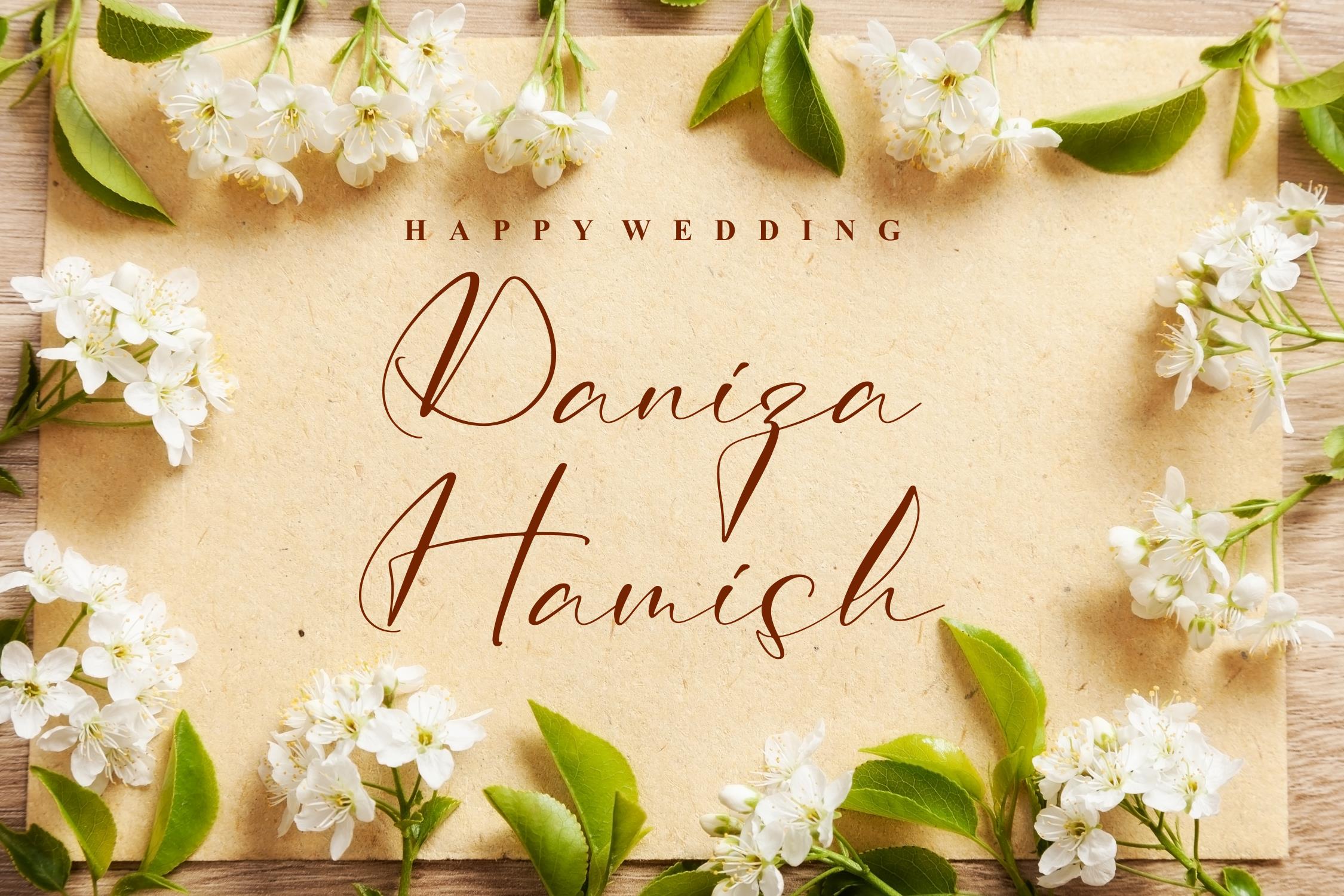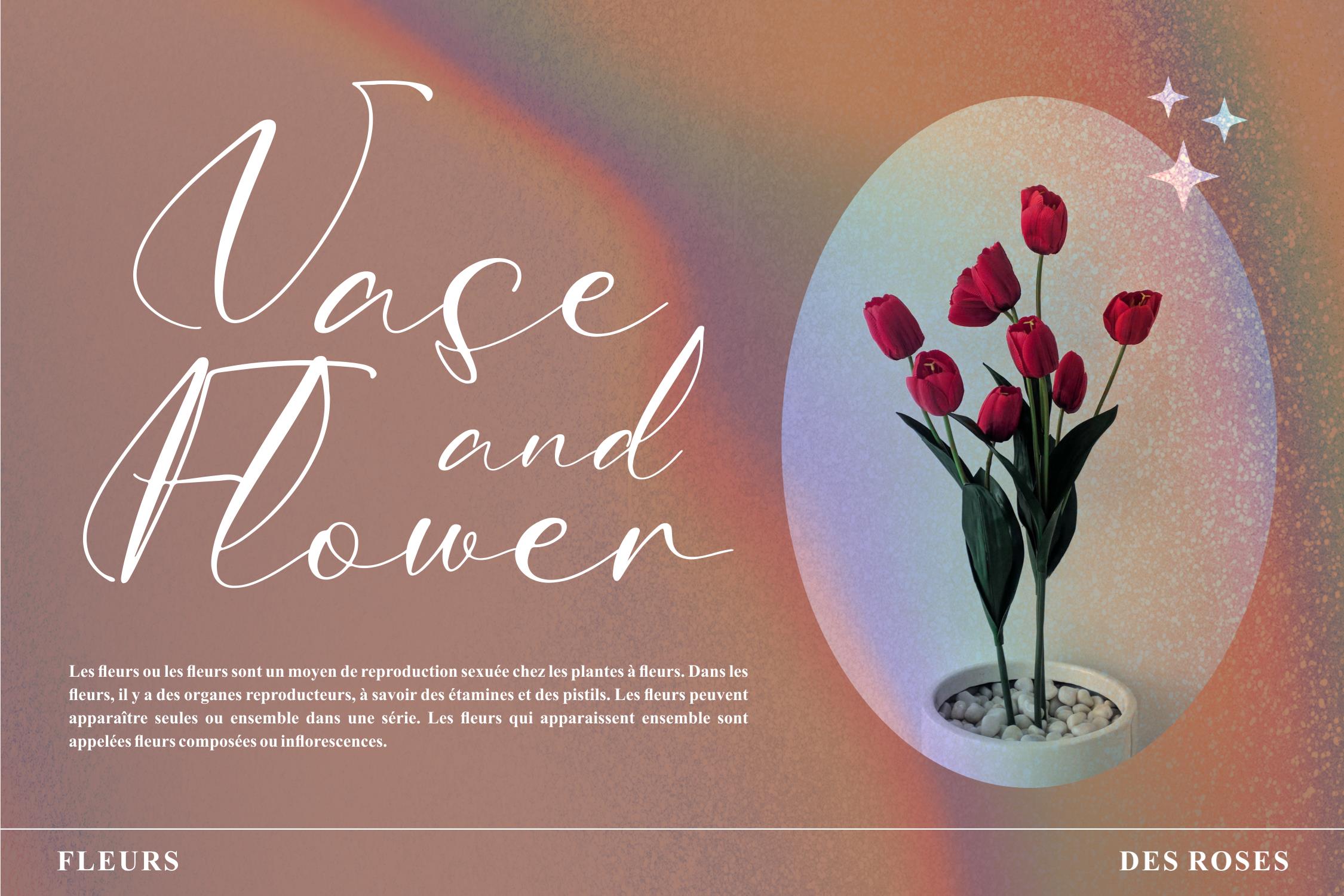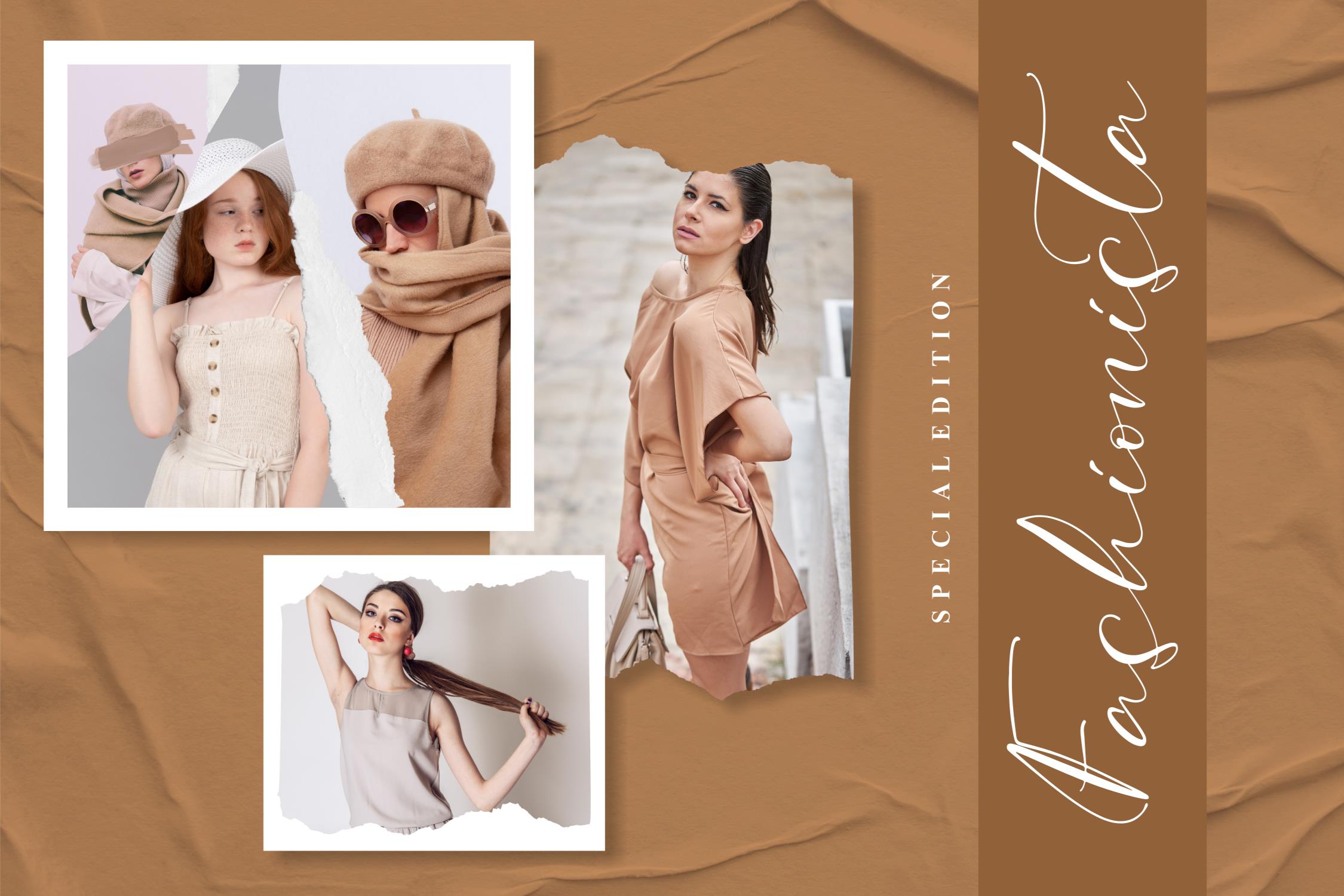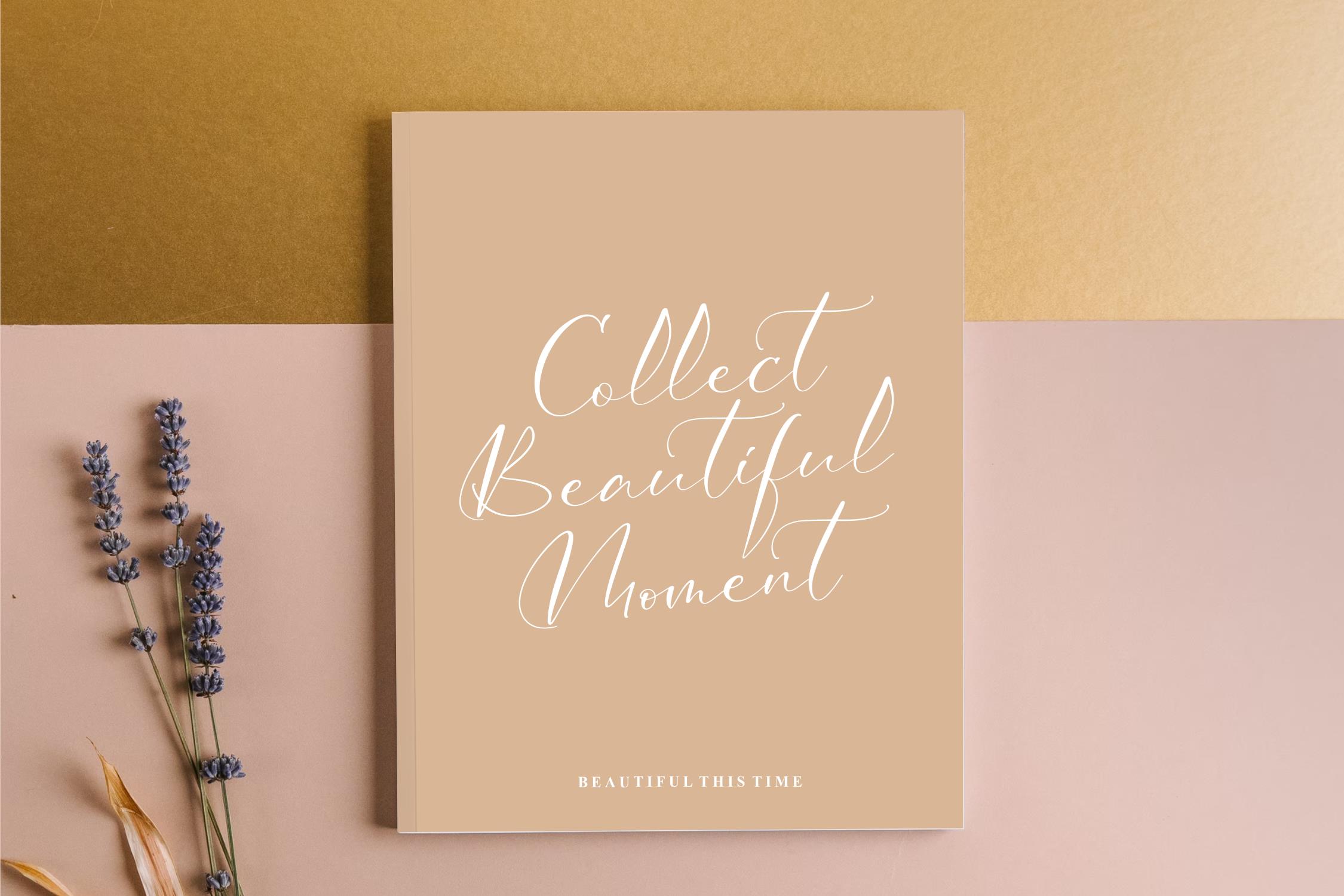
Dathian Mantika Font
Dathian Mantika Script Font
This is a beautiful script font, suitable for any projects such as: logos, branding projects, homeware designs, product packaging, mugs, quotes, posters, shopping bags, t-shirts, book covers, name card, invitation cards, greeting cards, label, photography, watermark, special events, and all your other lovely projects that need a beautiful script taste.